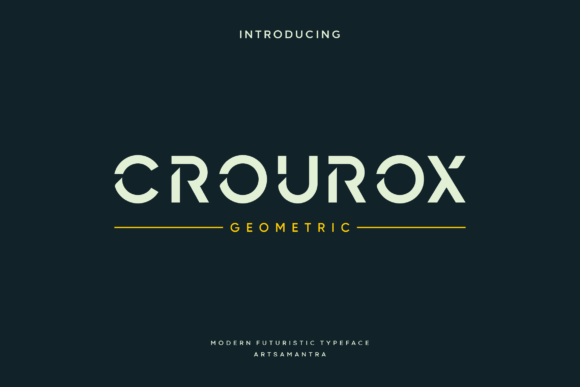
Dive into the realm of opulence and sophistication with Crourox, a font that epitomizes elegance and grace. Its finely crafted characters exude a sense of understated luxury, elevating your designs to new heights of visual appeal. Whether you're a seasoned graphic designer or a novice seeking to make a bold statement, Crourox is the perfect choice for your next creative endeavor.
Crourox's meticulously designed lowercase letters are a testament to its attention to detail. Each letterform is unique, boasting subtle curves and sharp angles that intertwine seamlessly to create a captivating visual experience. This font is a true chameleon, effortlessly adapting to various design styles. Its versatility shines through whether it's gracing business cards, adorning posters, or adding a touch of sophistication to brochures.
Crourox's versatility extends beyond its stylistic prowess. Its carefully balanced letterforms ensure optimal legibility, even in small sizes. This makes it an ideal choice for long copy, where clarity and readability are paramount. Whether you're crafting website text, designing marketing materials, or creating eye-catching headlines, Crourox delivers a seamless and engaging reading experience.
Embrace the power of Crourox and unlock a world of creative possibilities. Let its timeless elegance elevate your designs and leave a lasting impression on your audience. Experience the transformative power of Crourox today and elevate your creative vision to new heights.